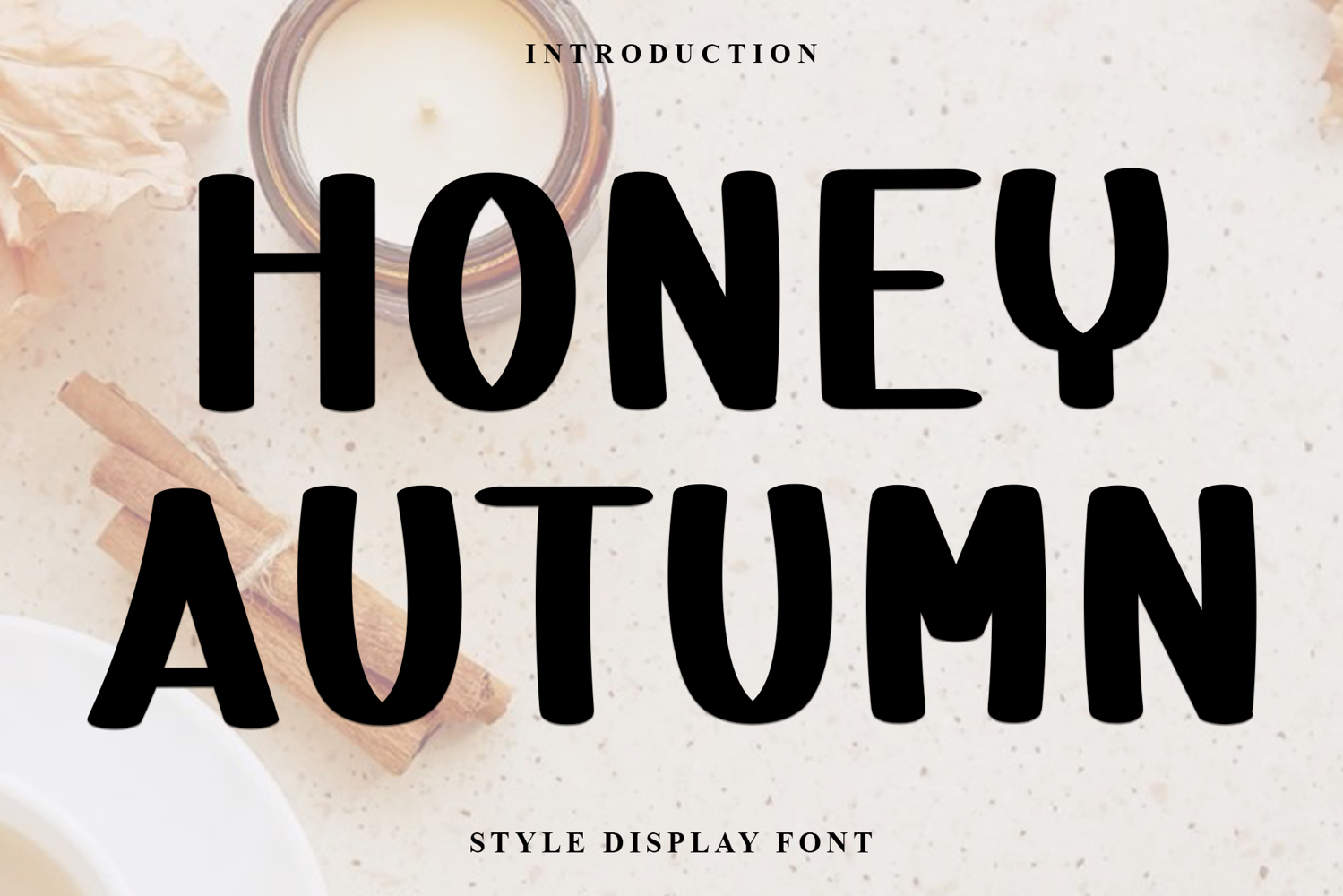
Honey Autumn
Honey Autumn is a beautiful and eye-catching font designed with a soft, unique touch. Its distinctive strokes give it a special character, making it meaningful and versatile for future use. With various characters, it’s perfect for design projects, crafts, and other creative works.